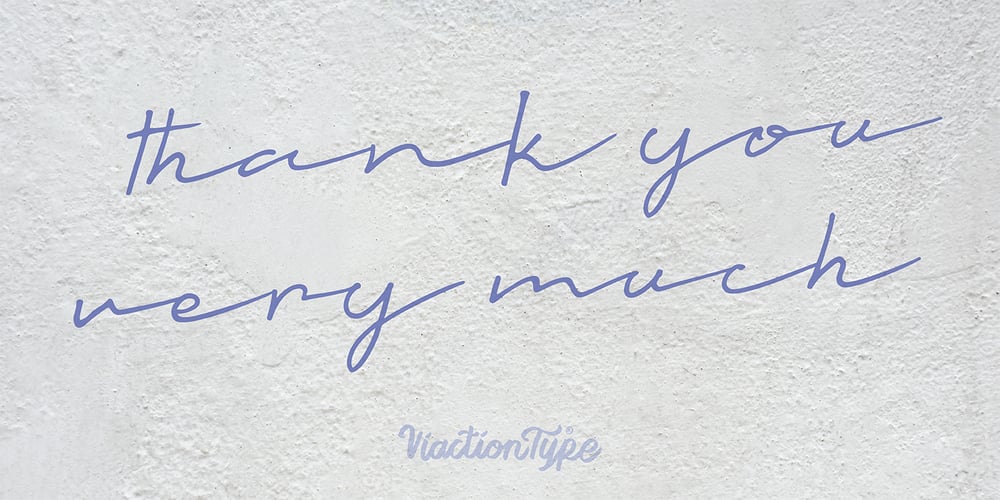
Talesian Font Family was designed by Lukman Hidayat and published by Viaction Type.Co. Talesian contains 2 styles and family package options. Talesian is in an original handwriting style, and looks very natural and beautiful. It is suitable for boutique brand, photography, magazine, quote, business card, logo, poster and many more. There are two weights: regular and bold, script is equipped with OpenType features such as ligatures and multilingual support. I hope you enjoy and thank you.